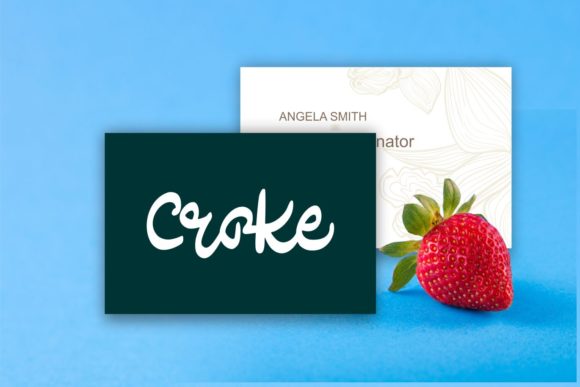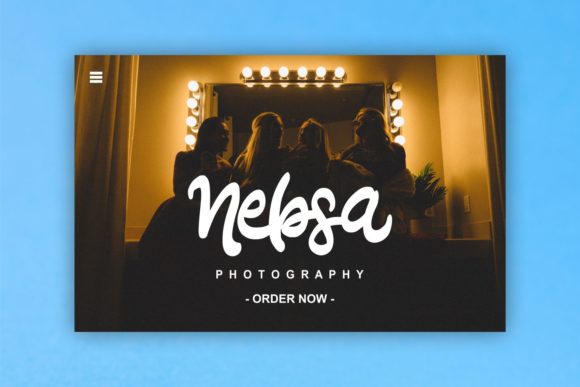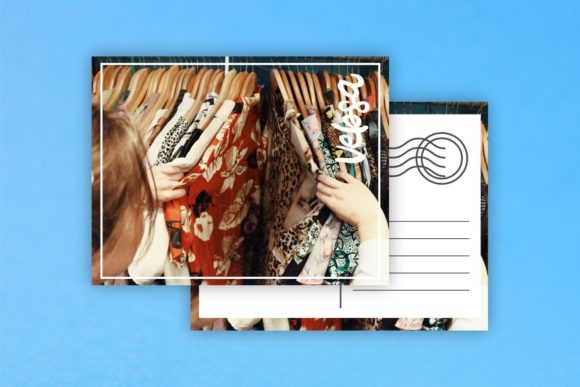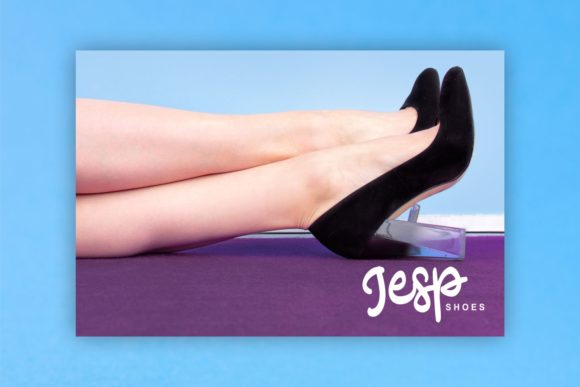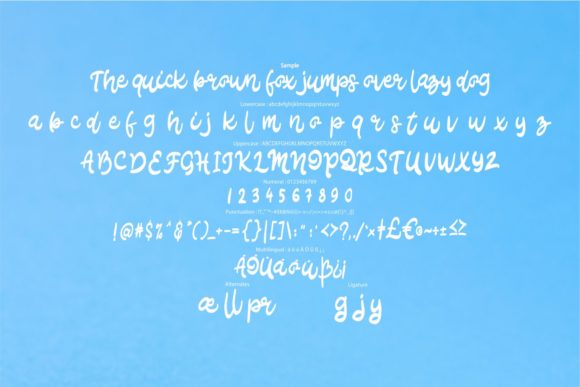
Discover the Timeless Charm of Alrte Font: A Beautiful Script Font
Are you a designer or crafter looking for a font that exudes elegance and sophistication? Look no further than Alrte Font, a stunning script font that is sure to capture your heart. With its timeless style and charming aesthetic, Alrte Font is the perfect addition to any design project.
What is Alrte Font?
Alrte Font is a beautiful script font that is full of charm and character. Its elegant and flowing lines make it perfect for a variety of design applications, from wedding invitations and branding materials to packaging and advertising. Whether you’re looking to add a touch of sophistication to your design or simply want to create something truly unique, Alrte Font is an excellent choice.
The Timeless Style of Alrte Font
One of the standout features of Alrte Font is its timeless style. Unlike some fonts that can look dated or trendy, Alrte Font has a classic aesthetic that will never go out of fashion. Its elegant lines and beautiful flourishes make it perfect for designs that require a touch of sophistication and elegance. Whether you’re creating a logo, a brochure, or a website, Alrte Font is sure to impress.
Features of Alrte Font
So, what makes Alrte Font so special? Here are just a few of its key features:
- Elegant script style: Alrte Font features beautiful, flowing lines that are perfect for creating elegant and sophisticated designs.
- Timeless aesthetic: Unlike some fonts that can look dated or trendy, Alrte Font has a classic aesthetic that will never go out of fashion.
- Charming flourishes: Alrte Font features beautiful flourishes that add a touch of personality and charm to any design.
- High-quality design: Alrte Font is designed to the highest standards, ensuring that it looks great in any design application.
Using Alrte Font in Your Designs
So, how can you use Alrte Font in your designs? Here are a few ideas to get you started:
- Wedding invitations: Alrte Font is perfect for wedding invitations, adding a touch of elegance and sophistication to your design.
- Branding materials: Use Alrte Font to create beautiful branding materials, such as logos, business cards, and brochures.
- Packaging design: Alrte Font is a great choice for packaging design, adding a touch of personality and charm to your product packaging.
- Advertising: Use Alrte Font to create eye-catching advertising materials, such as billboards, posters, and flyers.
Why Choose Alrte Font?
So, why should you choose Alrte Font for your design project? Here are just a few reasons:
- Unique and elegant: Alrte Font is a unique and elegant font that will add a touch of sophistication to any design.
- High-quality design: Alrte Font is designed to the highest standards, ensuring that it looks great in any design application.
- Timeless aesthetic: Alrte Font has a timeless aesthetic that will never go out of fashion, making it a great investment for any designer or crafter.
In conclusion, Alrte Font is a beautiful script font that is full of charm and character. Its timeless style and elegant aesthetic make it perfect for a variety of design applications, from wedding invitations and branding materials to packaging and advertising. Whether you’re a designer or crafter looking for a unique and elegant font, Alrte Font is an excellent choice. So why not fall in love with Alrte Font today and add a touch of sophistication to your design project?